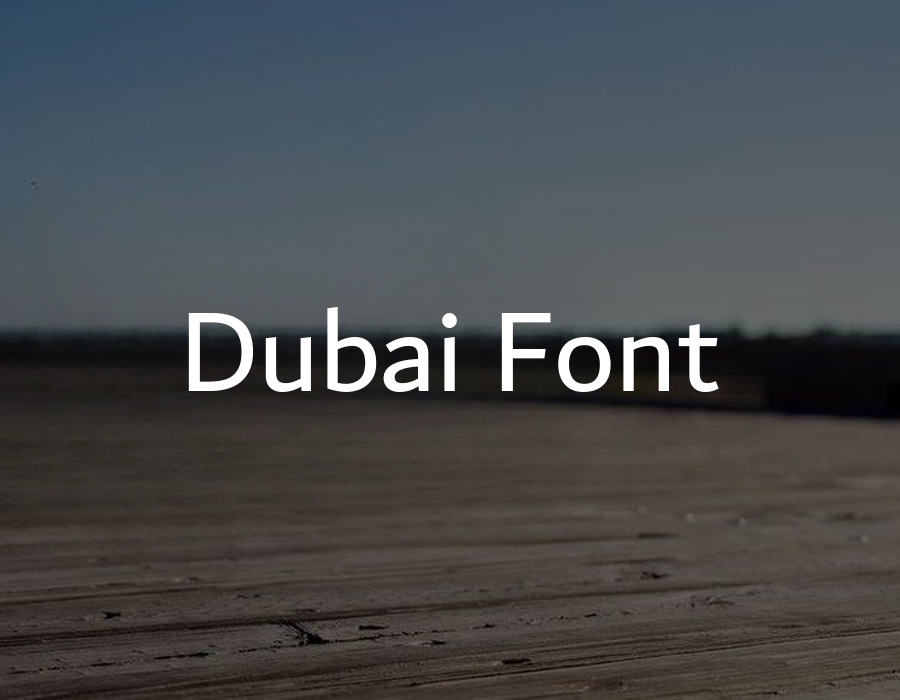
About Dubai Font
Dubai Font is a comprehensive typeface family created to bridge Arabic and Latin typography with a cohesive, contemporary aesthetic. It features a clean, humanist sans-serif design with a large x-height and open letterforms, ensuring high legibility across both scripts. Commissioned by the Dubai government, it was designed to promote cross-cultural communication and is notable for its wide range of weights and styles. Its neutral yet friendly character makes it suitable for digital interfaces, official documents, branding, and any context requiring clear, modern bilingual typesetting.